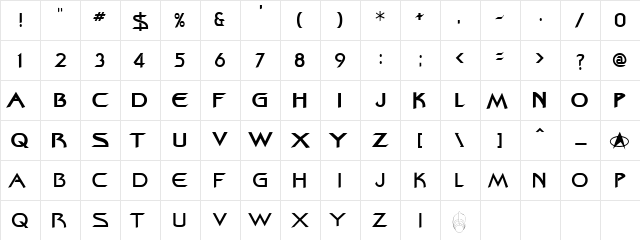
Bajoran Regular
Design Context for Bajoran
Bajoran is a composed and adaptable typeface that performs quietly and consistently across a wide range of design contexts.